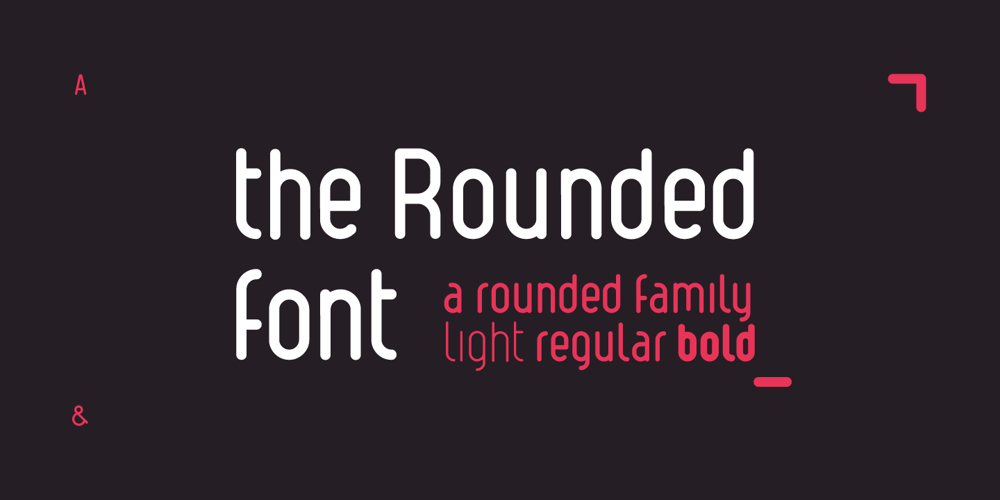
The Rounded Font
The Rounded Font font
The Rounded Font Font Family was designed by Sven Pels and published by Sven Pels. The Rounded Font contains 3 styles and family package options. the rounded font is a slight condensed and fun rounded typeface that comes in three weights: light, regular & bold. all letters are designed in the same line thickness. the fun way that the characters flow makes the font a useful but also unique typeface to use. it works great as both body text and headers. especially when you use the different weights in the right way. as graphic designer sven pels often deletes the dots of both the i’s en j’s to make it unique but also just to break some rules… svenpels.com instagram.com/svenpels